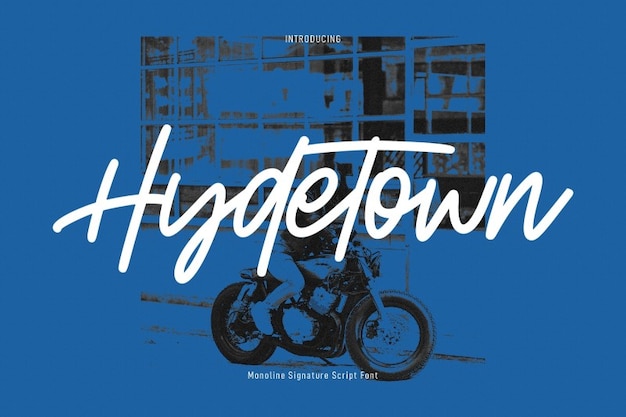
Hydetown Font
Maulana Creative
Hydetown is a charming single-line font that captures the essence of simple, handwritten script. Its fluid alphabet flows effortlessly, giving it a personal touch ideal for casual designs. Perfect for invitations, branding, and creative projects, Hydetown combines elegance with approachability, making any text feel warm and inviting while maintaining a clean, minimalist style.